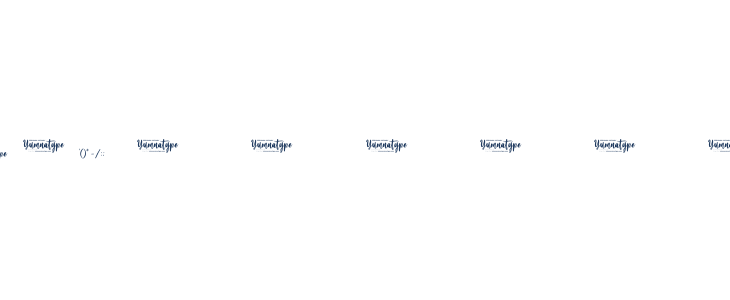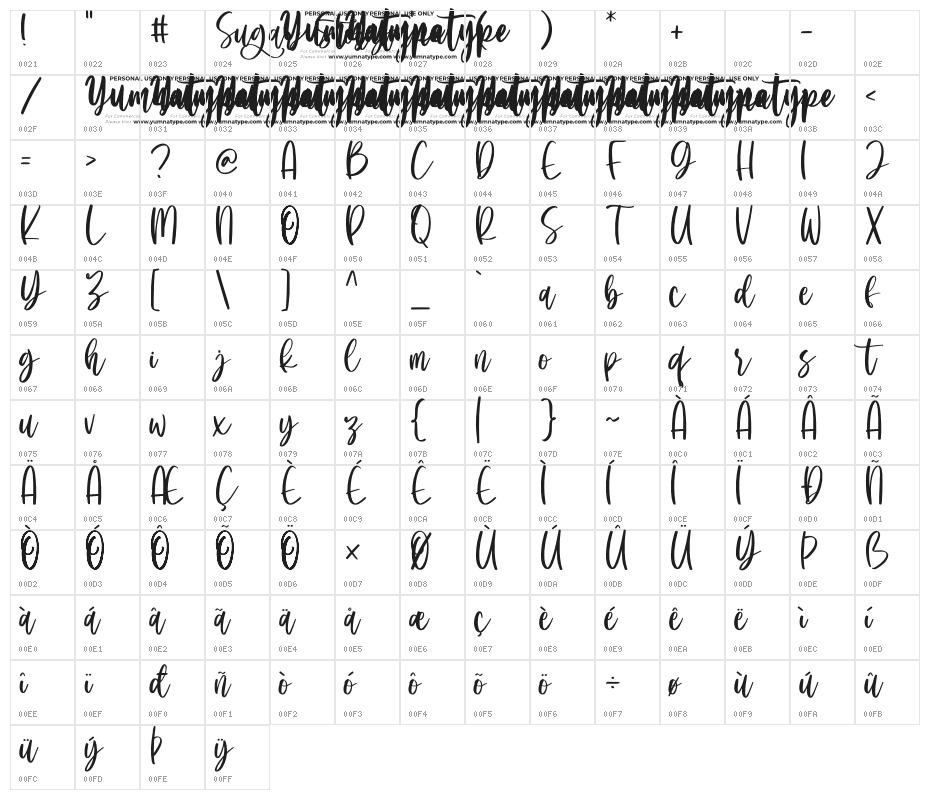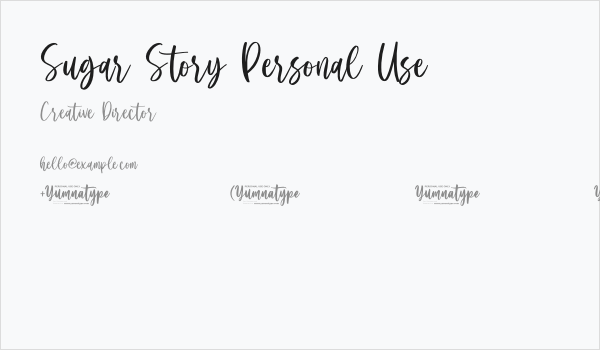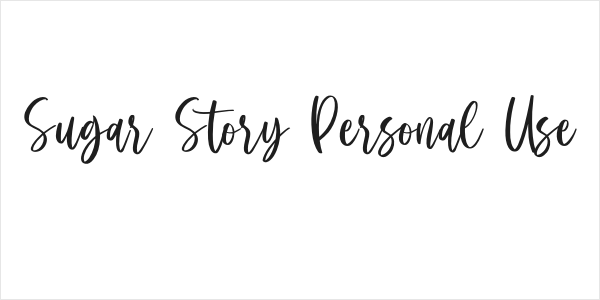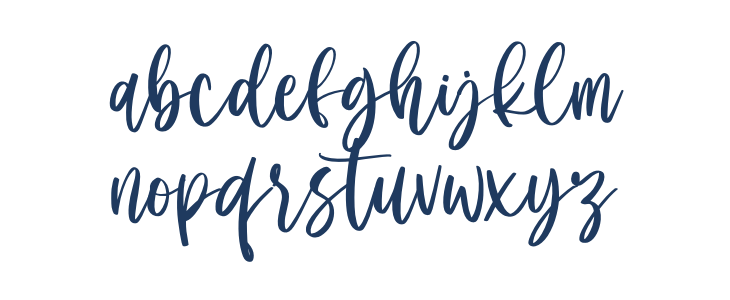
Sugar Story Personal Use Font
Sugar Story Personal Use Description
This font features a playful and flowing script style with a handwritten appearance. The characters are bold and have a smooth, continuous stroke that gives a sense of movement and elegance. The uppercase letters are slightly taller and more pronounced, while the lowercase letters maintain a consistent flow. The font includes a full set of uppercase and lowercase letters, numbers, and a selection of special characters. Its design is both casual and sophisticated, making it versatile for various creative projects.
| Proposed Projects | Ideal for wedding invitations, greeting cards, branding, and social media graphics. |